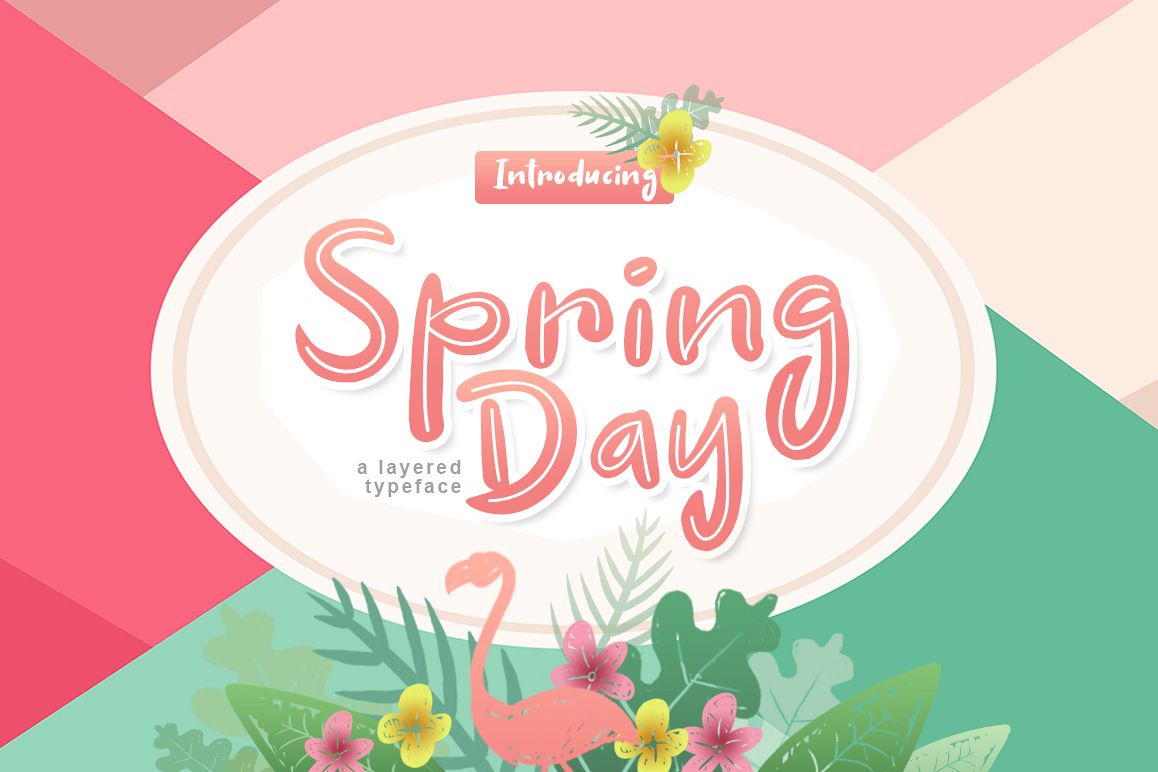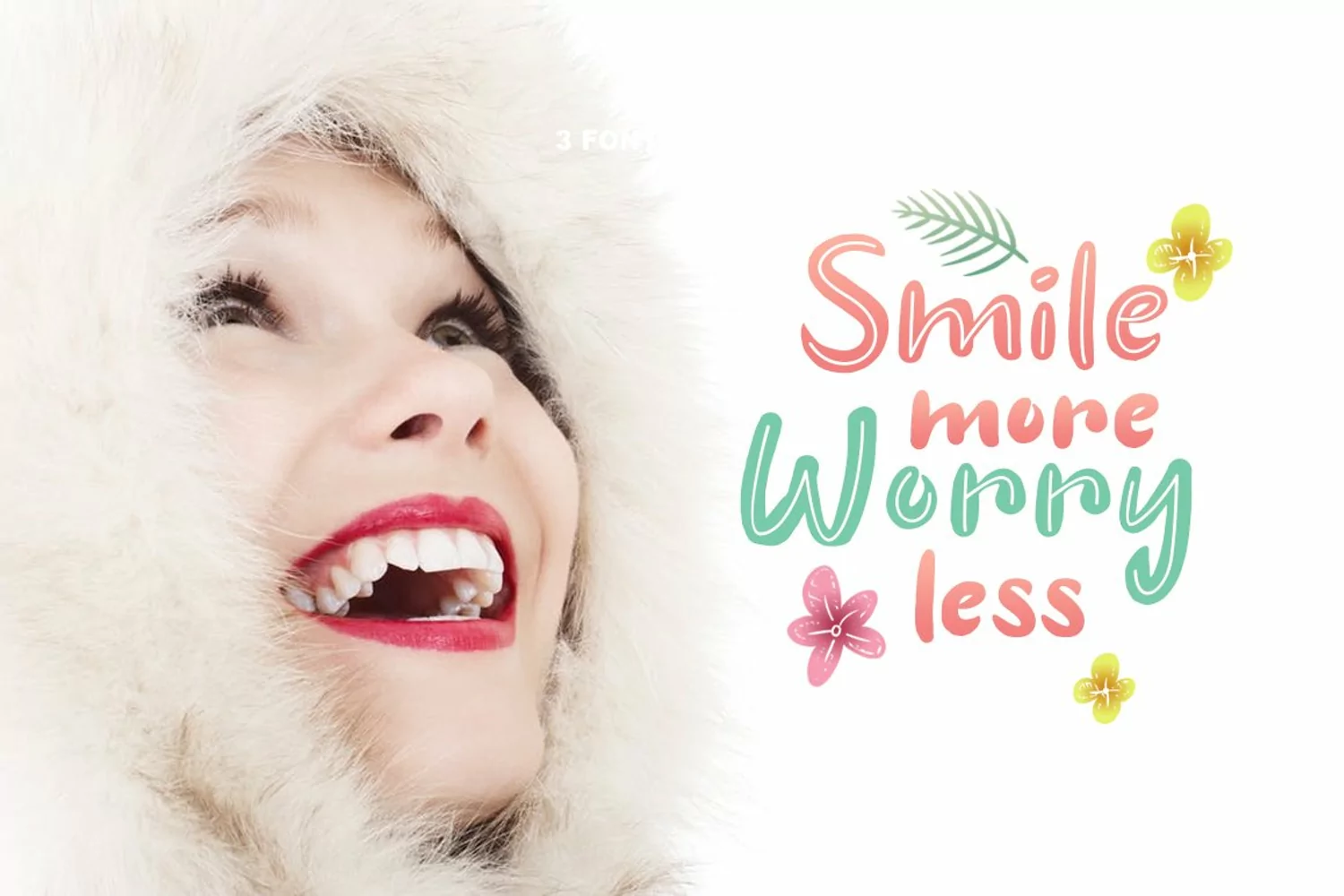
Spring Day Display Font is a fun bold script font, fresh & modern style . Spring Day Display Font suitable for logo, branding, greeting card, poster and any design that you create.
Features:- Uppercase
- Punctuation & Numeral
- Support Multilingual